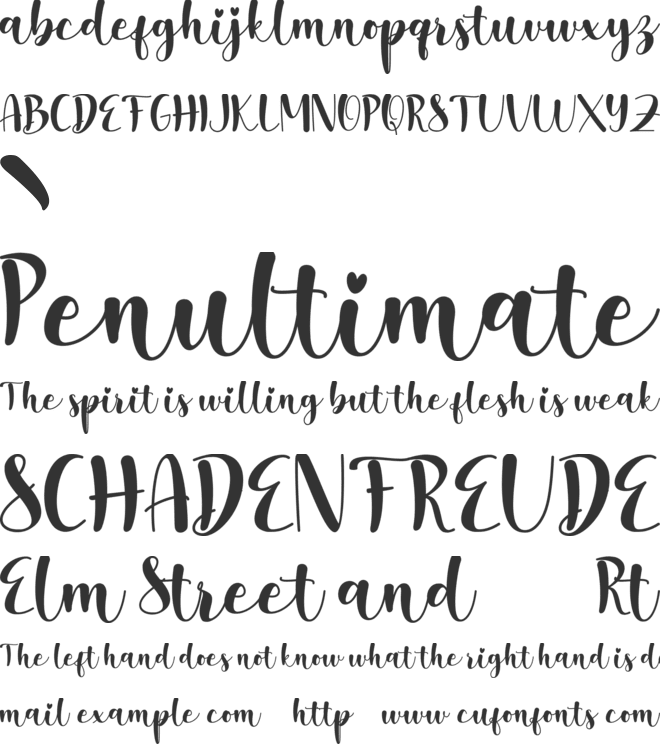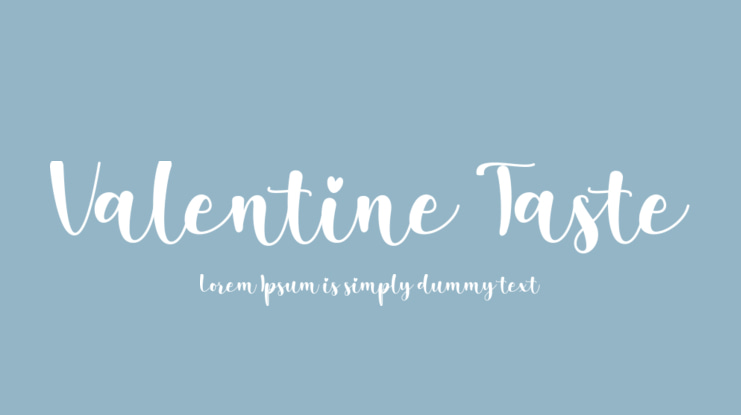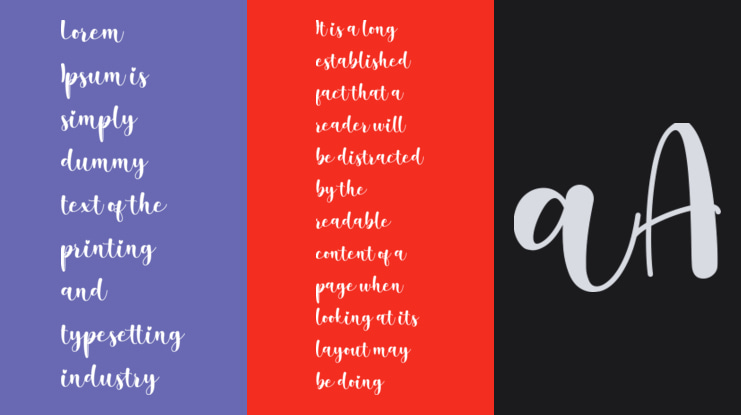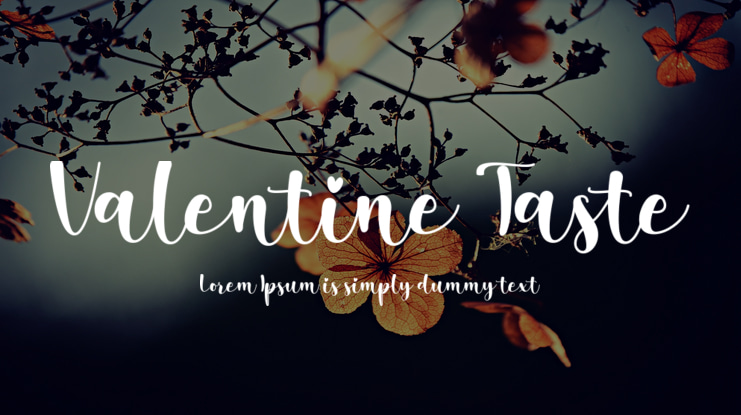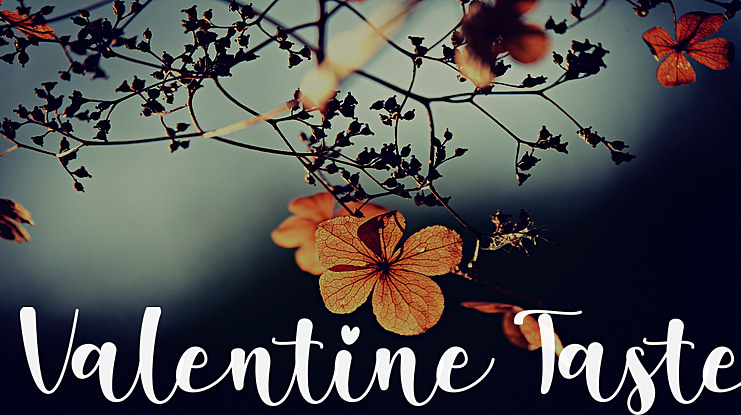
Valentine Taste Font
Valentine Taste is a romantic and sweet script font with characters that dance along the baseline. It will add a luxury spark to any design project that you wish to create! This font is PUA encoded, which means you can access all of the amazing glyphs and ligatures with ease!